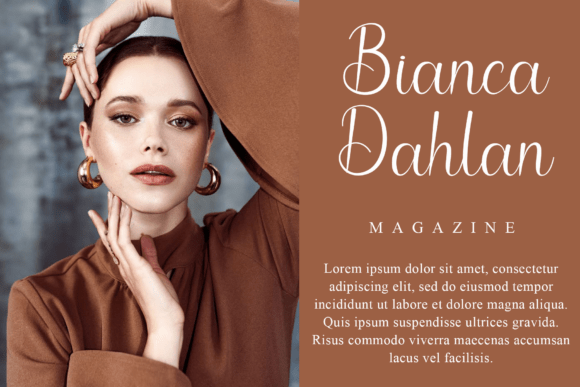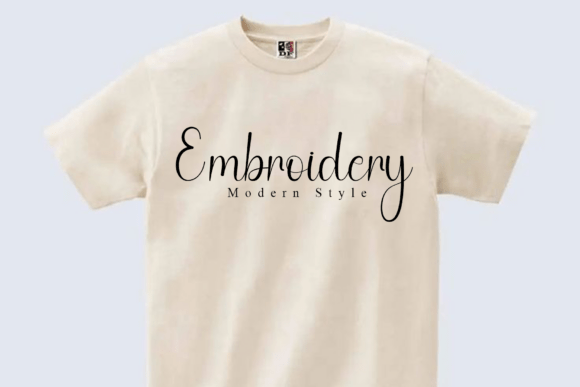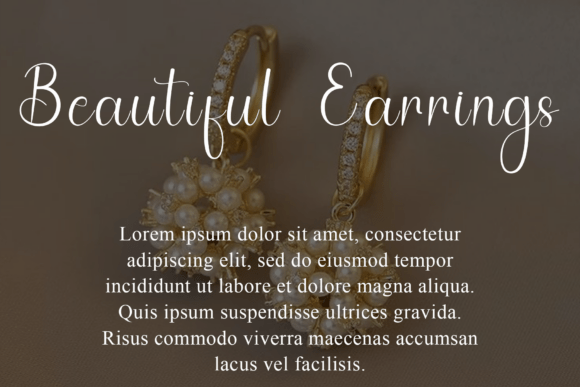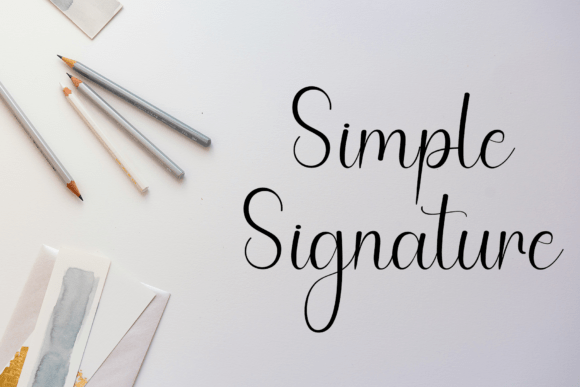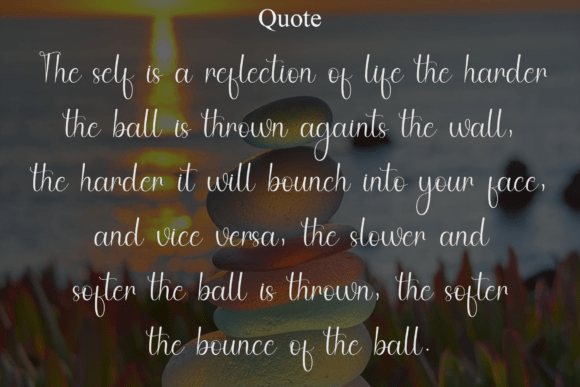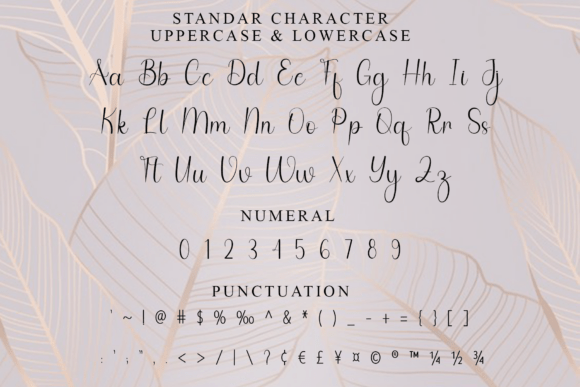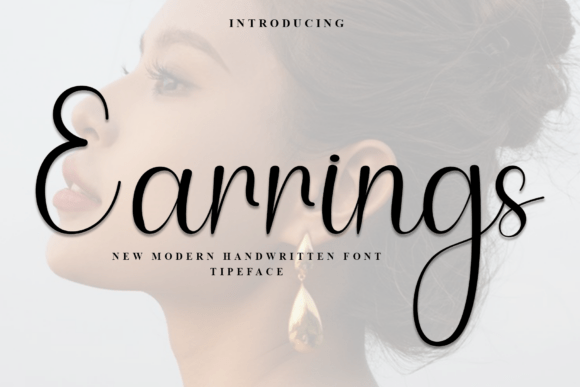
Earrings Font: The Perfect Choice for Creative and Casual Designs
Are you looking for a font that can add a touch of warmth and friendliness to your designs? Look no further than Earrings Font! This casual and creative font is perfect for personal projects, invitations, social media graphics, and any other design that needs a relaxed and approachable feel.
The Characteristics of Earrings Font
Earrings Font is characterized by its round, playful strokes that create a fun and unique aesthetic. The font’s charming, hand-drawn look adds a touch of personality to any design, making it perfect for crafters and designers who want to add a personal touch to their work.
The Benefits of Using Earrings Font
So, why should you choose Earrings Font for your next design project? Here are just a few benefits of using this versatile and charming font:
- Warm and Friendly Aesthetic: Earrings Font exudes warmth and friendliness, making it perfect for designs that need a personal touch.
- Casual and Creative: The font’s playful strokes and hand-drawn aesthetic make it perfect for casual and creative designs.
- Versatile: Earrings Font can be used in a wide range of design applications, from personal projects to social media graphics.
How to Use Earrings Font in Your Designs
Using Earrings Font in your designs is easy! Here are a few tips to get you started:
- Experiment with Different Sizes and Colors: Earrings Font looks great in a variety of sizes and colors, so don’t be afraid to experiment and find the perfect look for your design.
- Pair it with Other Fonts: Earrings Font pairs well with other fonts, so try pairing it with a bold font for a fun and unique look.
Earrings Font in Action
So, what does Earrings Font look like in action? Here are a few examples of how this charming font can be used in different designs:
- Personal Projects: Earrings Font is perfect for personal projects, such as scrapbooking, card making, and journaling.
- Invitations: The font’s warm and friendly aesthetic makes it perfect for invitations, such as birthday parties, baby showers, and weddings.
- Social Media Graphics: Earrings Font is great for social media graphics, such as Facebook posts, Instagram stories, and Pinterest pins.
In conclusion, Earrings Font is a versatile and charming font that is perfect for designers and crafters who want to add a touch of warmth and friendliness to their designs. With its round, playful strokes and standard PUA Encoded glyphs, this font is easy to use and perfect for a wide range of design applications.
Whether you’re working on a personal project, creating invitations, or designing social media graphics, Earrings Font is the perfect choice. So why not give it a try and see how it can add a fun and unique touch to your designs?